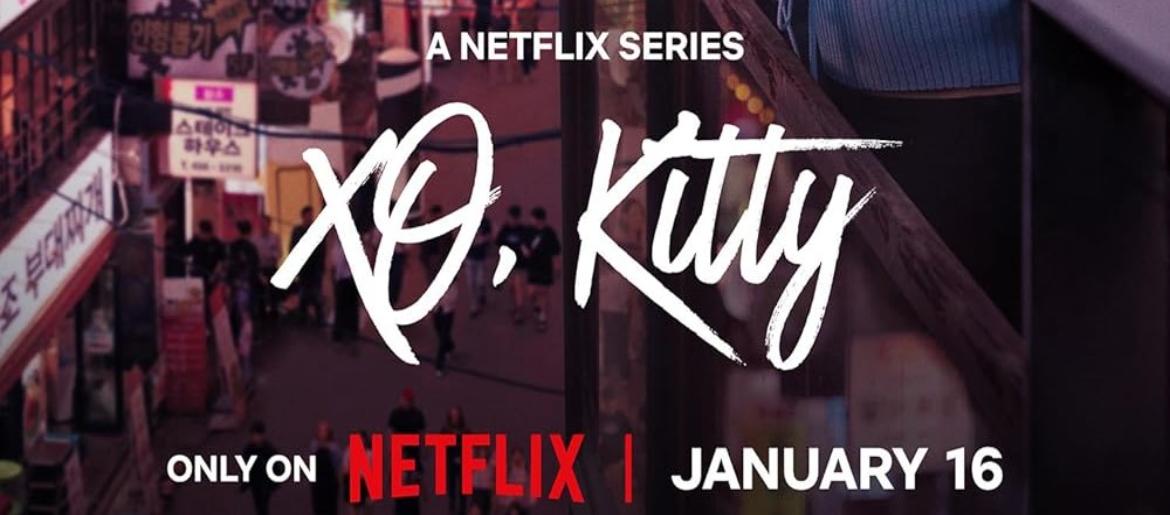
XO Kitty Font
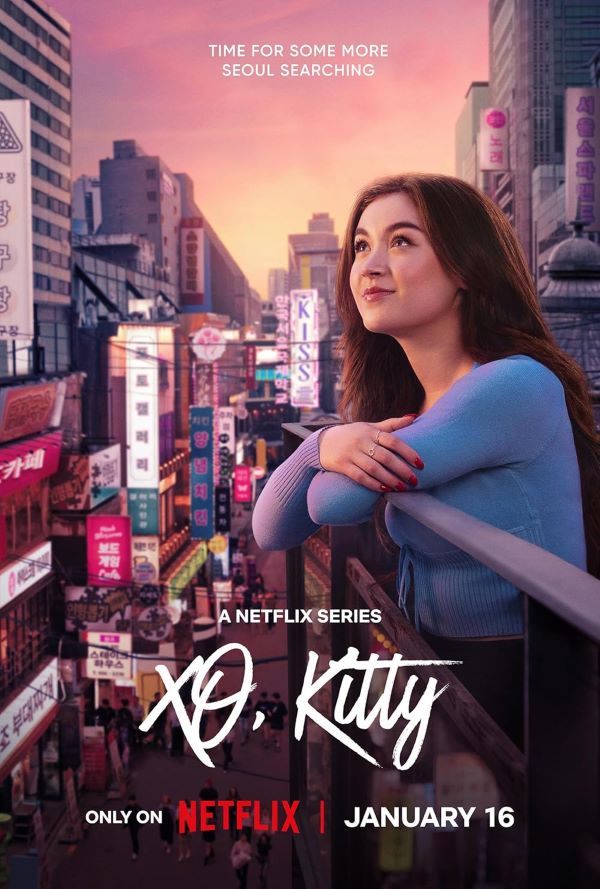
What Font is XO Kitty?
The XO Kitty Font is most closely associated with Have Heart One by Sam Parrett, a commercial typeface known for its playful, rounded letterforms and charming handwritten style. The font’s soft curves and romantic feel perfectly match the youthful, fun branding of the series. A free alternative font is also available for those seeking a similar bubbly and heartwarming look.
About XO, Kitty
XO, Kitty is a 2023 romantic comedy-drama TV series and a spin-off of the To All the Boys I’ve Loved Before film franchise. The show follows Kitty Song Covey (Anna Cathcart) as she moves to Seoul to attend an elite international school, hoping to reunite with her long-distance boyfriend and uncover the truth about her late mother’s past.
Blending teen romance, friendship drama, and coming-of-age themes, the series features a cast including Choi Min-young, Gia Kim, Sang Heon Lee, and Anthony Keyvan. Set against the vibrant backdrop of South Korea, XO, Kitty explores identity, first love, cultural discovery, and the complications of growing up far from home.